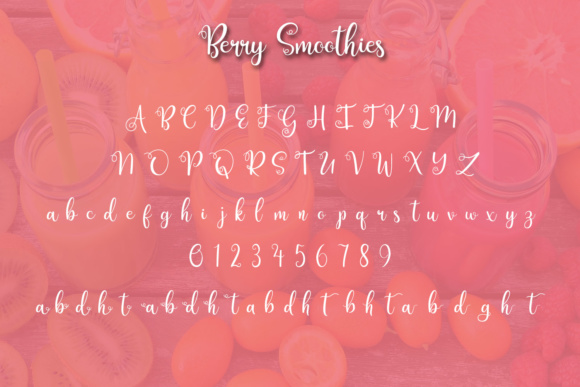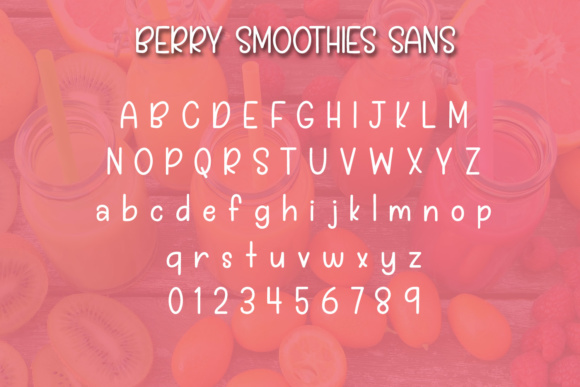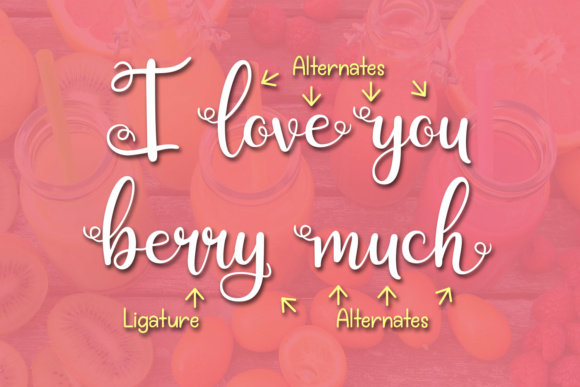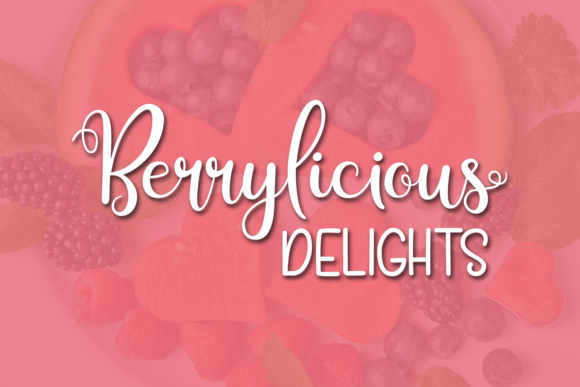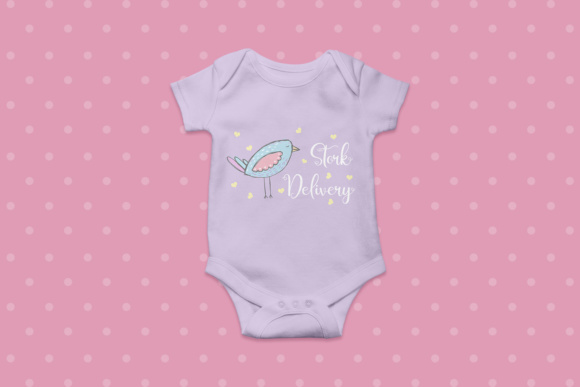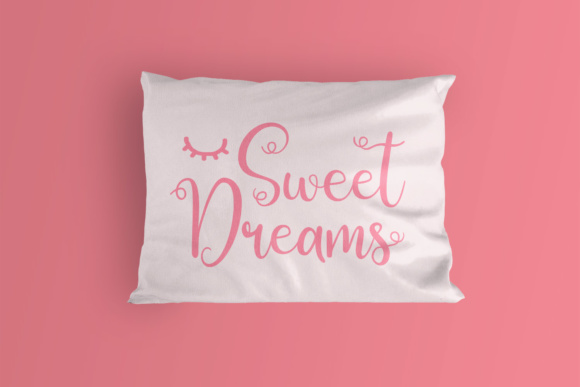
Unleashing the Flair of Summer in Your Designs
There’s nothing quite like the feeling of sipping a refreshing berry smoothie on a warm summer day. The vibrant colors and sweet flavors transport us to a world of creativity and possibility. As designers, we strive to capture that same essence in our work – a perfect blend of style and personality. That’s exactly what the Berry Smoothies Font duo offers, with its beautiful script and sans-serif companions that can be mixed and matched to create the perfect look for your design.
With the Berry Smoothies Font, you’ll have the freedom to add a touch of whimsy and playfulness to your designs, making them stand out in a crowded market. The inclusion of discretionary ligatures and decorative elements like swashes and swirls takes your typography to the next level, giving your designs a truly handmade feel. Whether you’re working on a branding project or creating a social media campaign, the Berry Smoothies Font is an invaluable tool that will help you bring your vision to life.
Berry Smoothies Font Key Features
- Font Family: Berry Smoothies Font is a unique, handwritten script font designed to evoke a sense of whimsy and playfulness.
- Character Count: With over 500 characters, including uppercase and lowercase letters, numbers, and punctuation marks, Berry Smoothies Font offers extensive character support.
- Unique Characteristics: Berry Smoothies Font features a hand-drawn, organic feel, with subtle variations in stroke width and letterform shape, giving it a distinctive and eye-catching appearance.
Design Review: Berry Smoothies Font
Overall, I think the Berry Smoothies Font has some nice qualities, but it also has some limitations that might make it less appealing to some users.
- The font is highly customizable, with a wide range of color options and font sizes.
- The font’s script style gives it a friendly, approachable feel that’s perfect for food and beverage brands.
- The font is highly legible, making it easy to read even at small sizes.
- The font’s design is quite playful and may not be suitable for more formal brands or applications.
- The font’s script style can be a bit difficult to read at very large sizes, where the letters may become too ornate.
- The font’s customization options can be overwhelming, making it difficult to choose the perfect combination of colors and sizes.
Overall, I think the Berry Smoothies Font is a solid choice for brands that want a fun, approachable look. However, it may not be the best fit for more formal or conservative brands. With some careful selection of colors and sizes, the font can be a great addition to a brand’s visual identity.
For best results, use “Berry Smoothies Font” for titles, headings, and other text elements where a playful and whimsical feel is desired.
- Children’s product packaging
- Event invitations and promotional materials
Alternatives to Berry Smoothies Font
Great Vibes Font is a modern, elegant script font perfect for designs that need a touch of sophistication. It’s ideal for use in branding, advertising, and editorial designs. Compared to Berry Smoothies Font, Great Vibes Font has a more refined and polished look, making it suitable for high-end designs.
Pacifico Font is a beautiful, cursive font inspired by the Pacific coast. It’s perfect for designs that need a relaxed, beachy vibe. Compared to Berry Smoothies Font, Pacifico Font has a more laid-back and casual feel, making it suitable for designs that require a carefree atmosphere.
Playfair Display Font is an elegant, luxurious font perfect for designs that need a touch of sophistication and glamour. It’s ideal for use in high-end branding, advertising, and editorial designs. Compared to Berry Smoothies Font, Playfair Display Font has a more refined and luxurious look, making it suitable for premium designs.